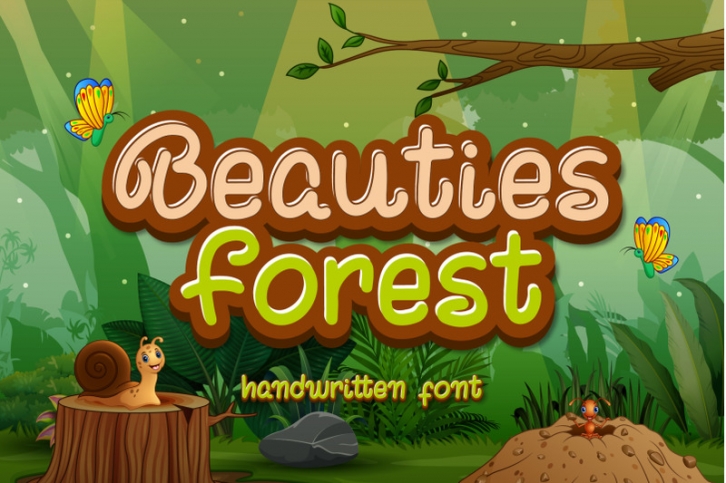
Beauties Forest FONT Download
Beauties Forest is a sweet, funny, cute handwritten font. Clean and soft, this font is the perfect fit for all of your crafty DIY projects, cricut, logos, branding, social media, etc.